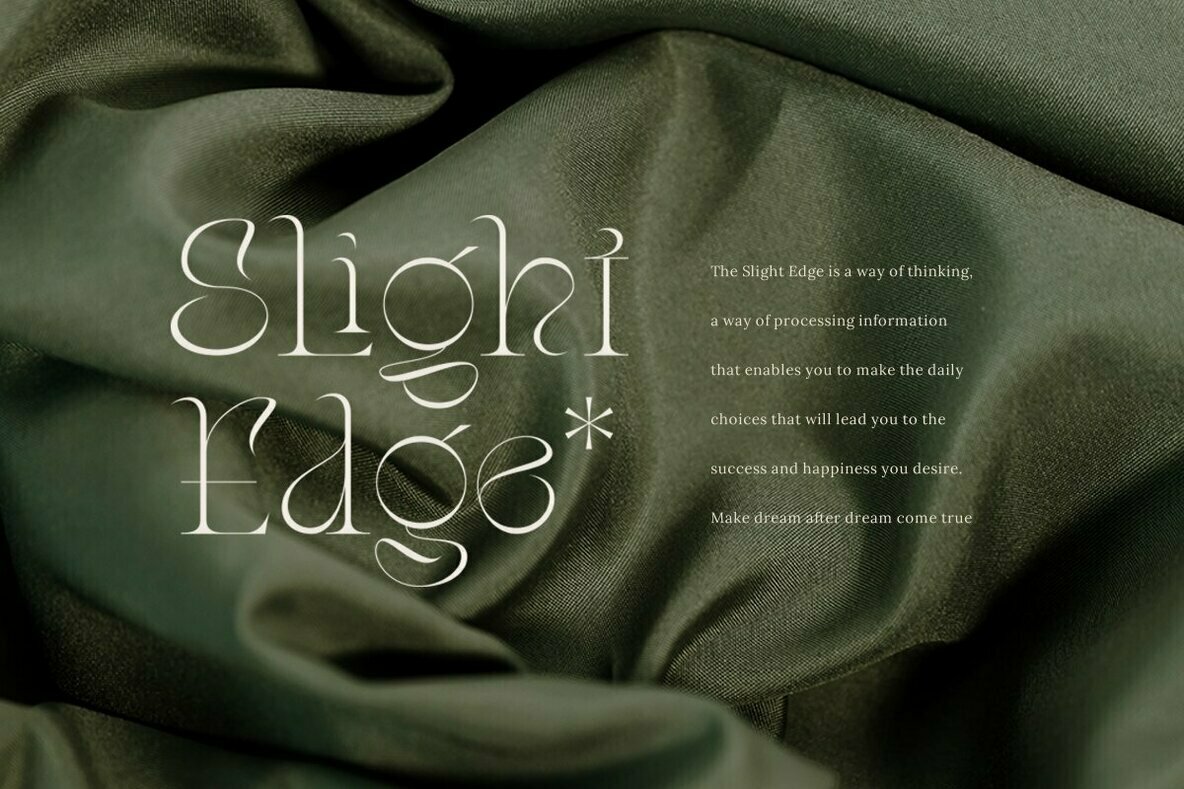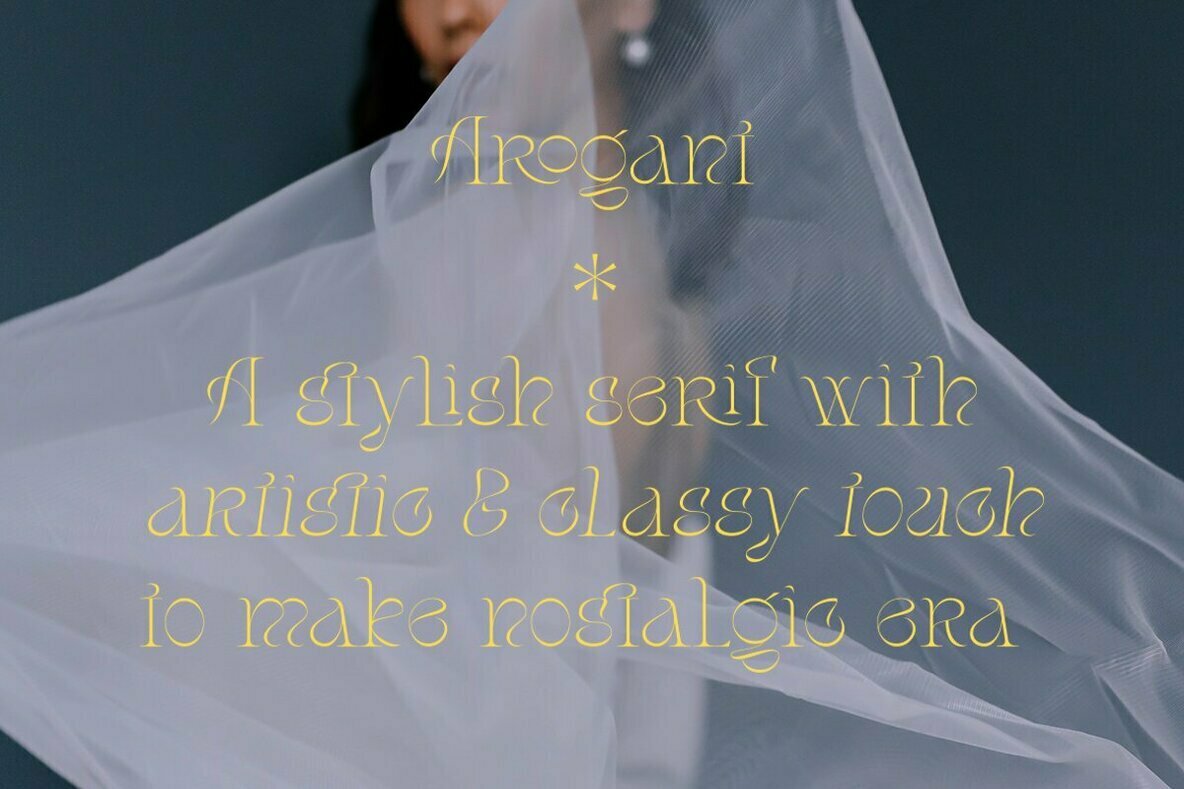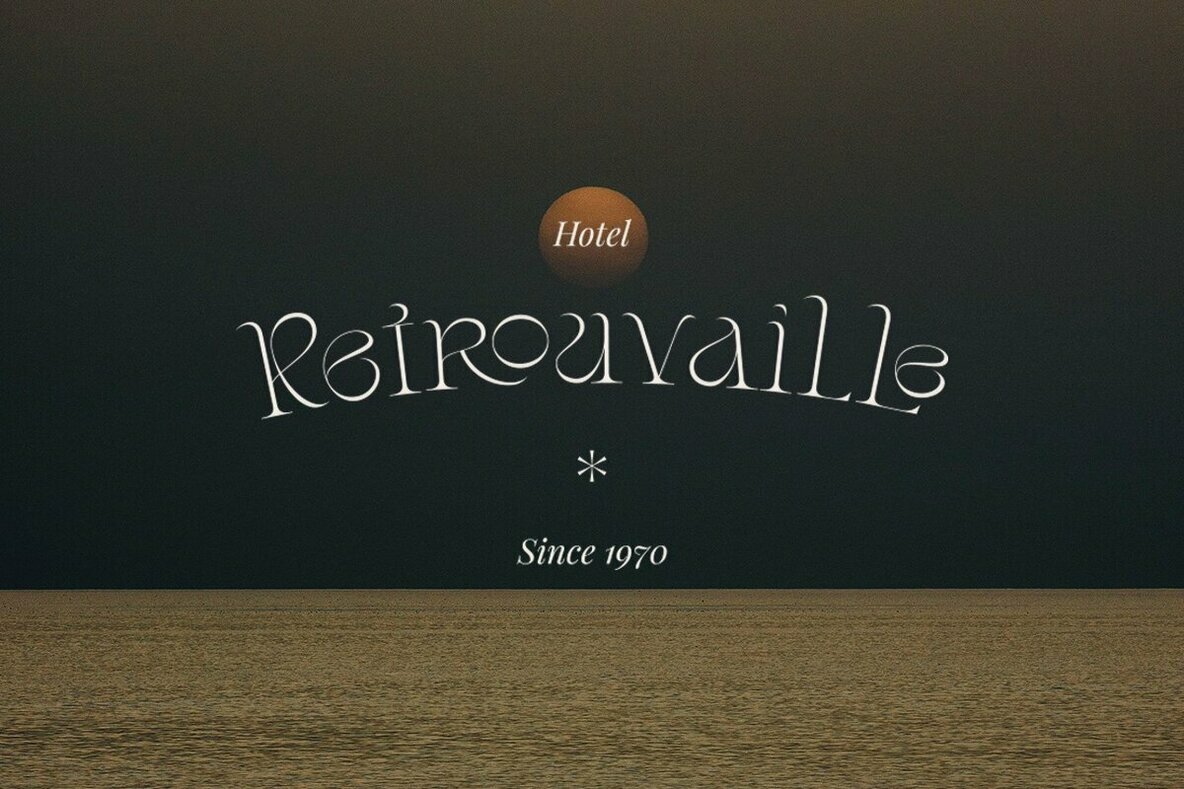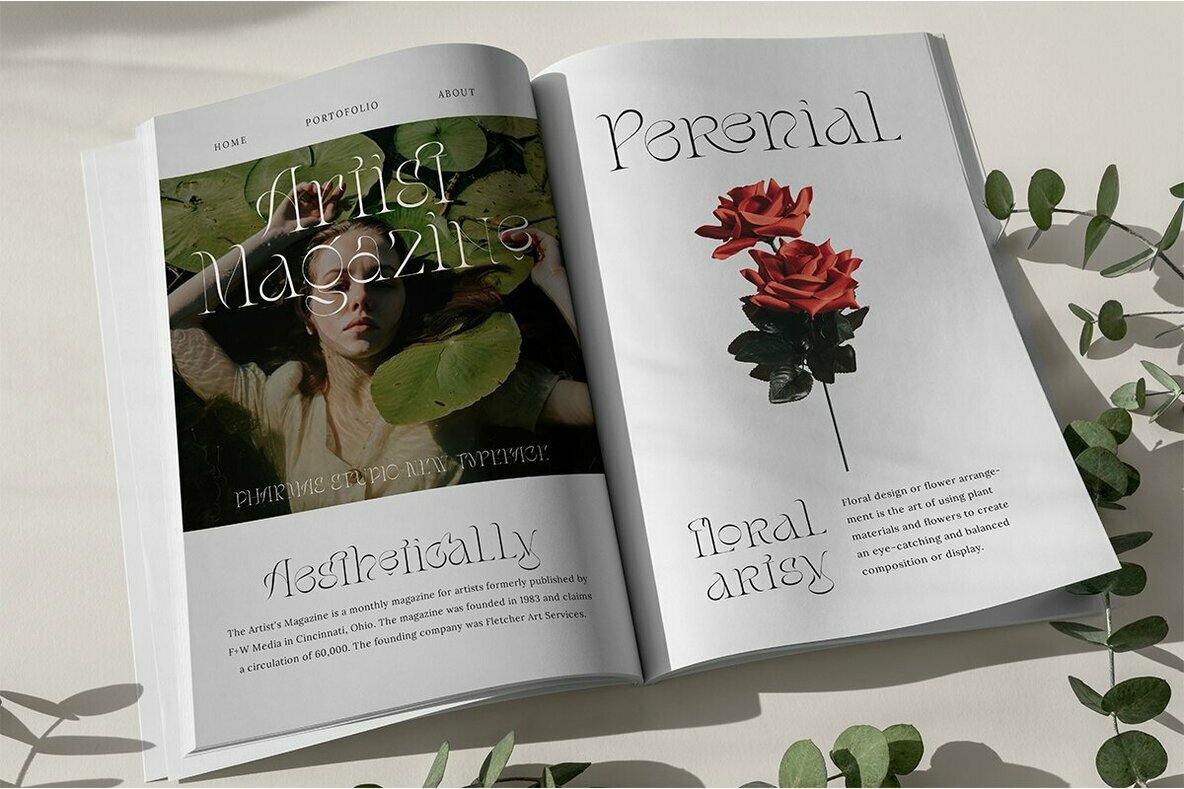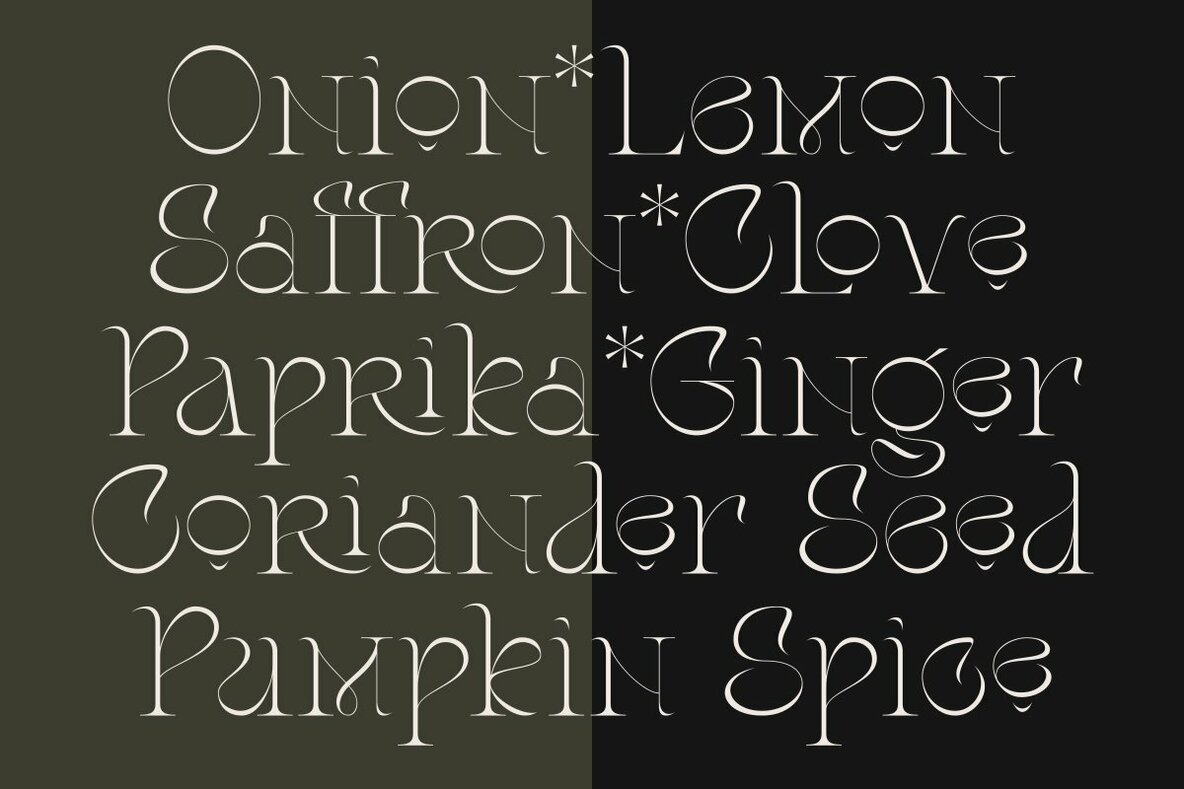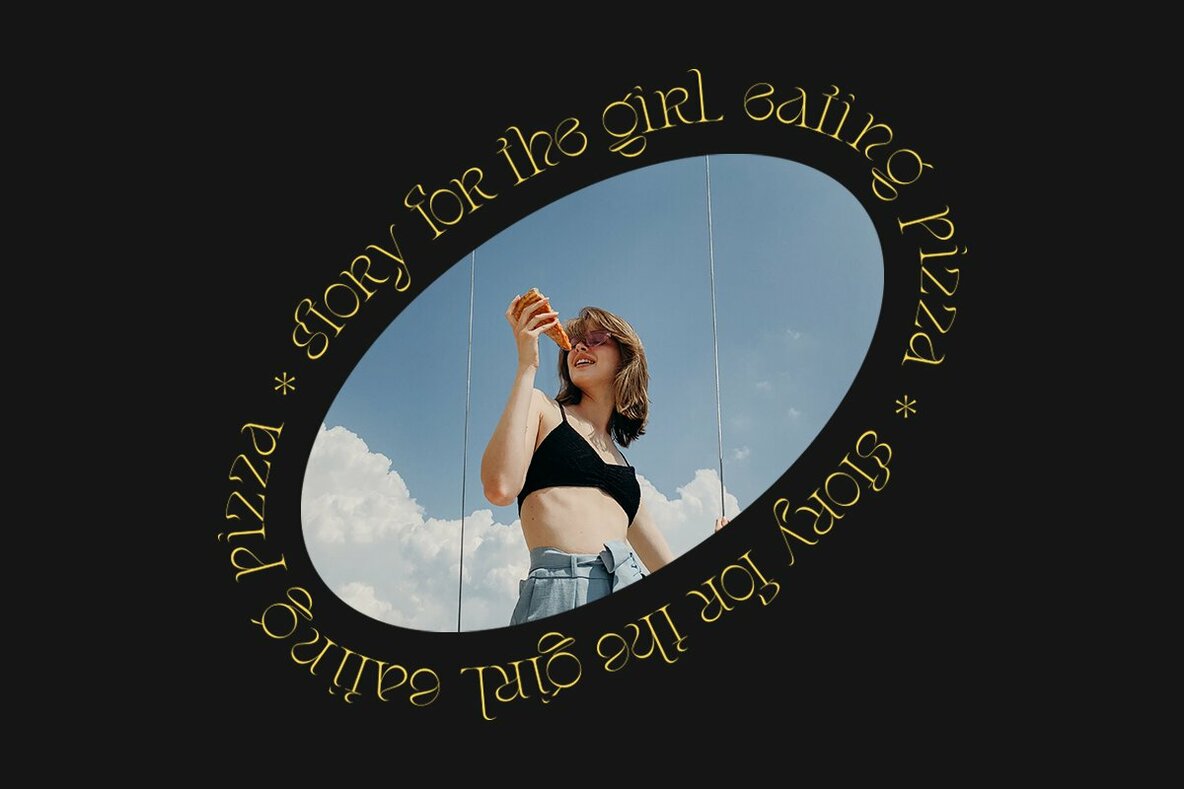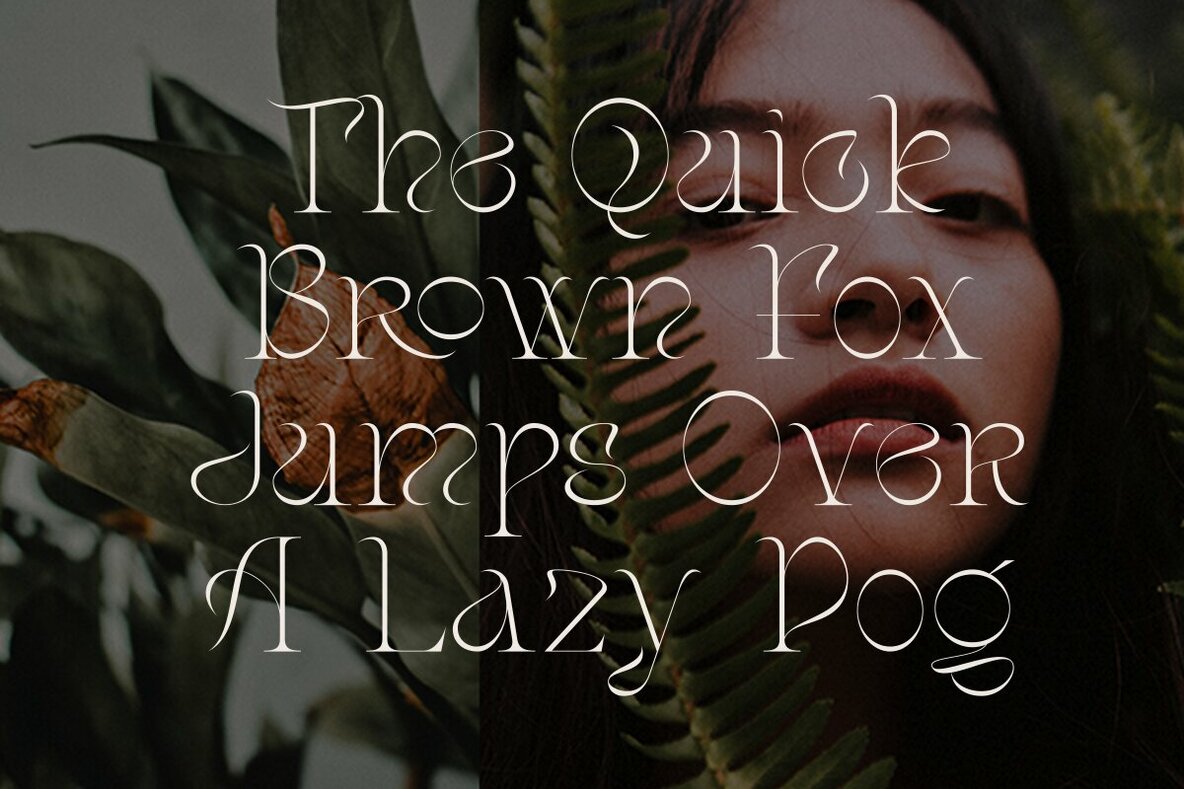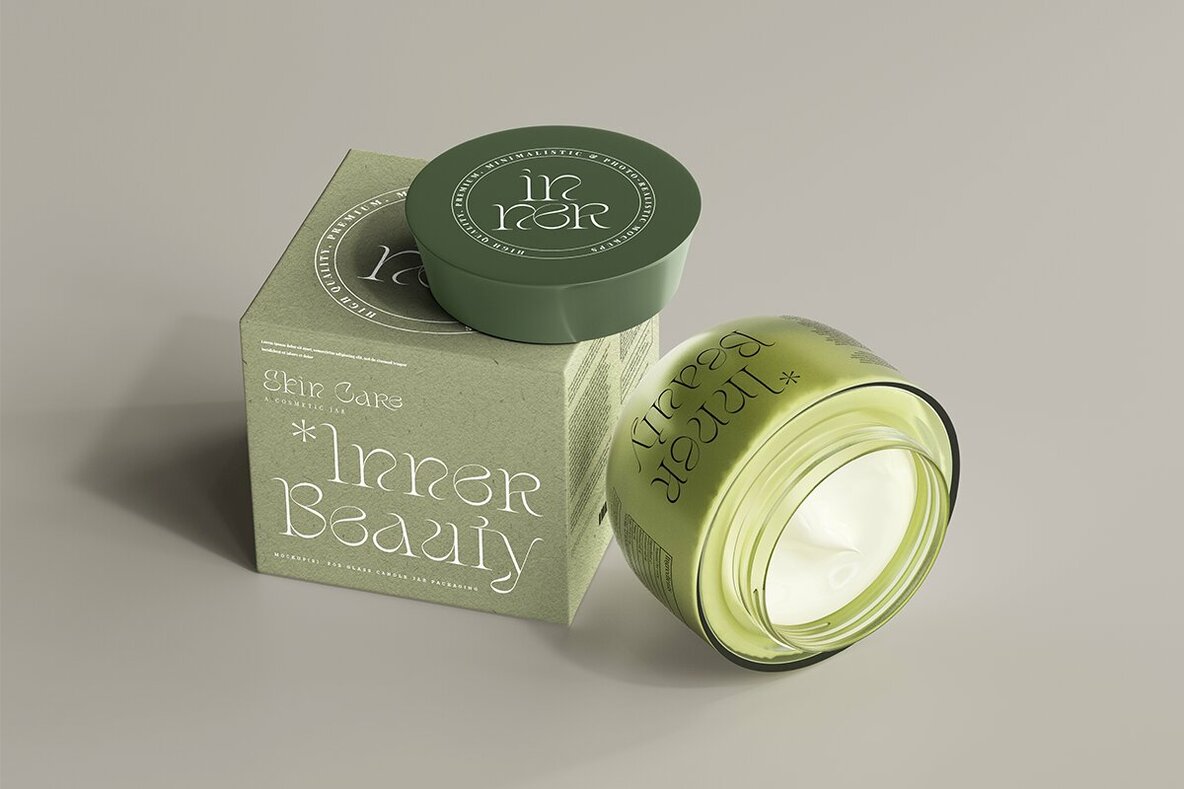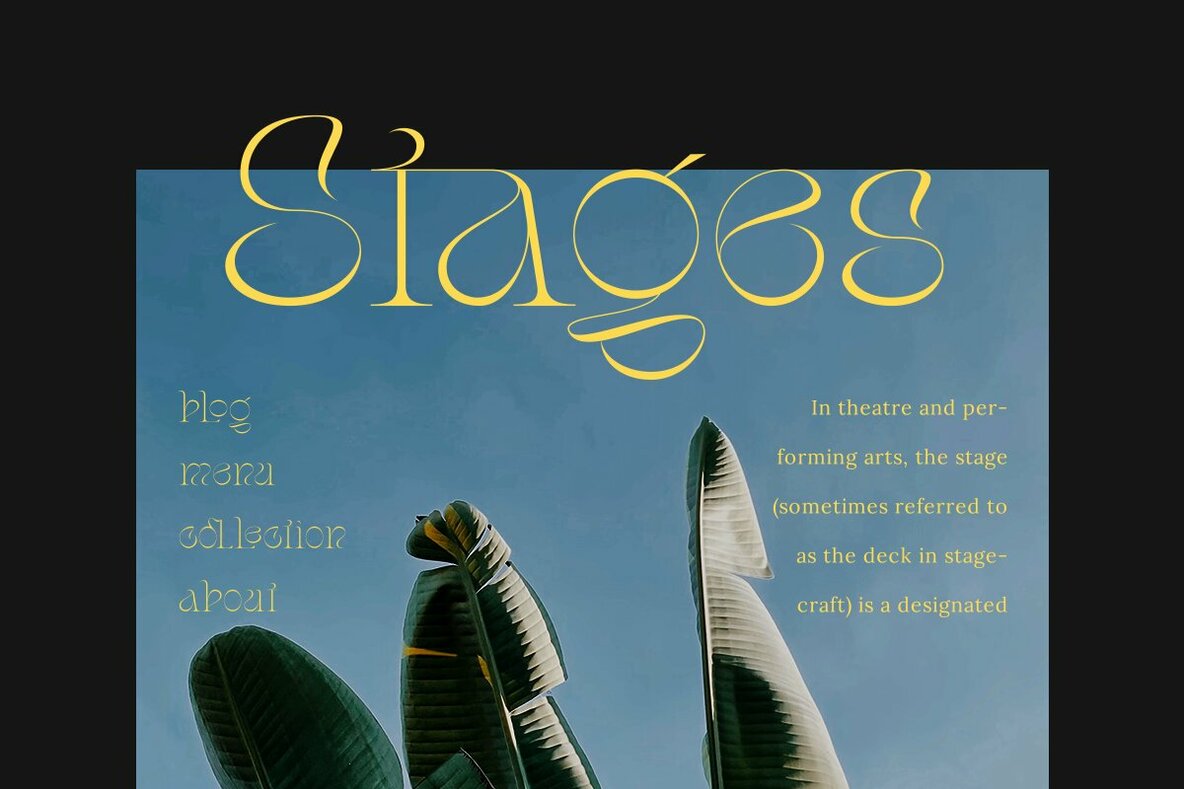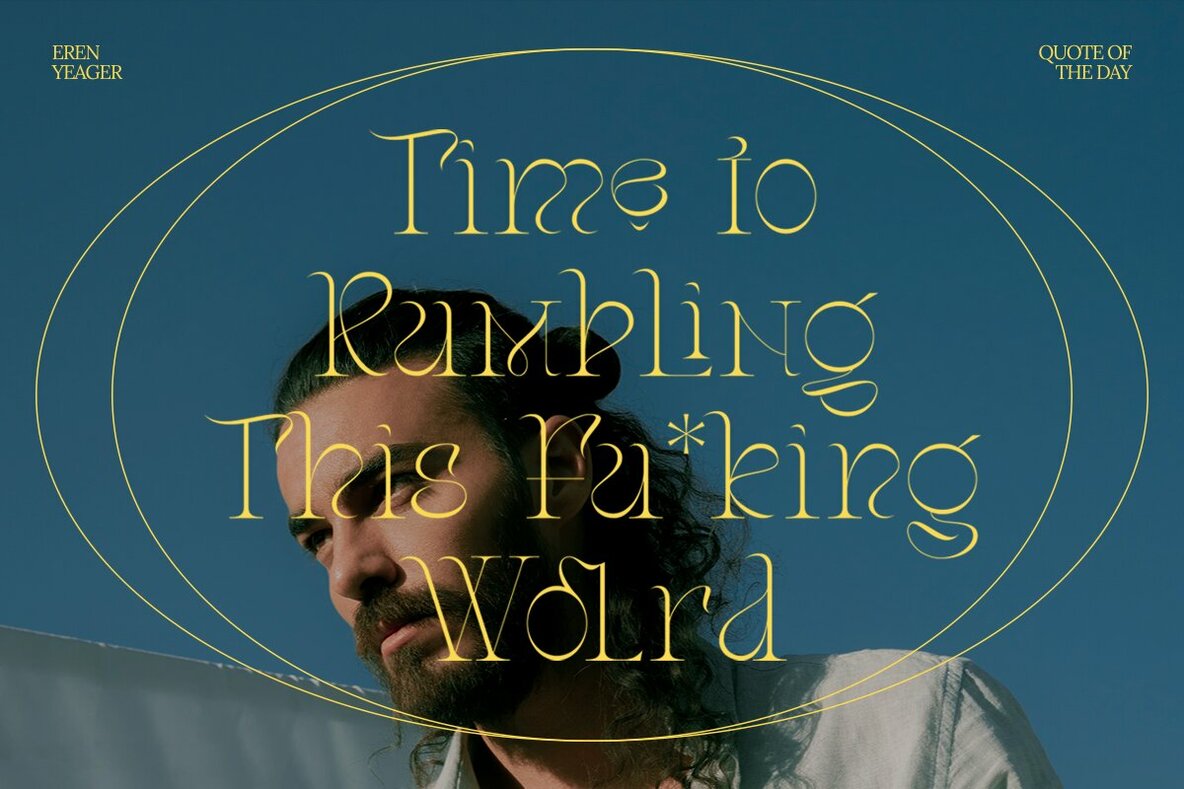
Arogant: Stylish Serif with Nostalgic Elegance
Step back in time with Arogant, a serif font that combines artistry and sophistication, designed by Dharmas Studio. Its thin letter forms, paired with unique alternates and elegant ligatures, create a chic and luxurious aesthetic with a hint of retro charm.
This font is ideal for a range of projects, including branding, poster design, fashion, and digital media. Its availability in both regular and italic versions offers versatility, making it perfect for achieving a refined yet vintage look in various designs.
• Unique alternates and ligatures